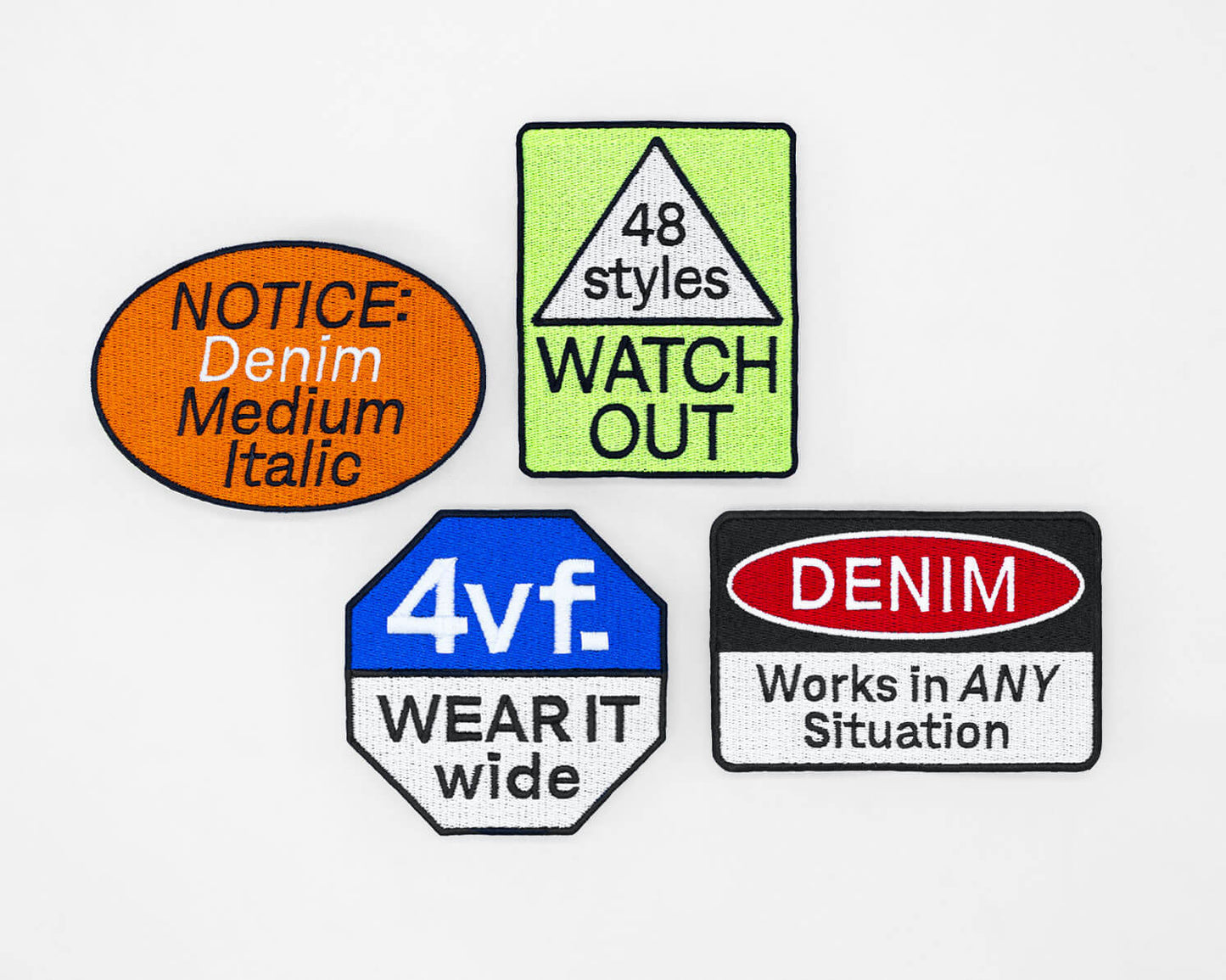
Denim PATCHES
Watch out! Denim (typeface) works in any situation! It’s doubly powerful when paired with Denim PATCHES. These possess the power to elevate any mundane piece into a bold statement. And we’re not only talking about jackets, sweaters, bags, and totes, but also fancy pants or worker’s overalls… Let your fantasy run wild!
This patch set was designed in collaboration with Forth+Back Studio. The inspiration behind it draws from signage in industrial workplaces. Sure thing! These patches are big and bold enough to catch anyone’s eye, and they’ll hold up in any situation – plus, they’ll keep you looking stylish!
Font in use: Denim Coll.